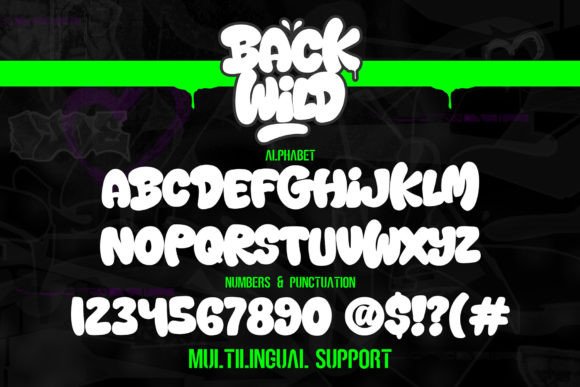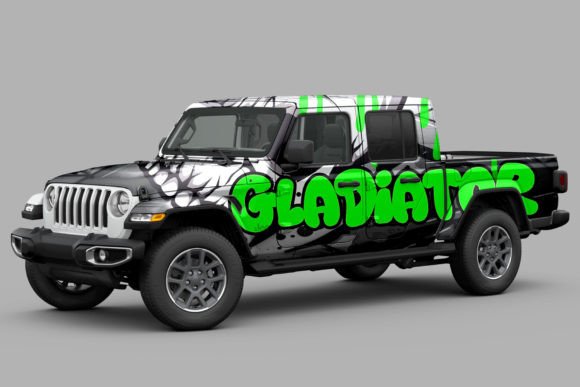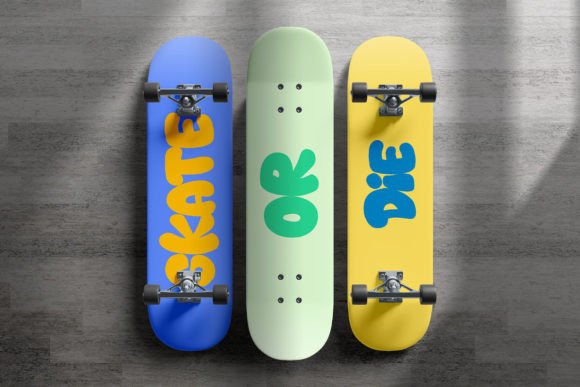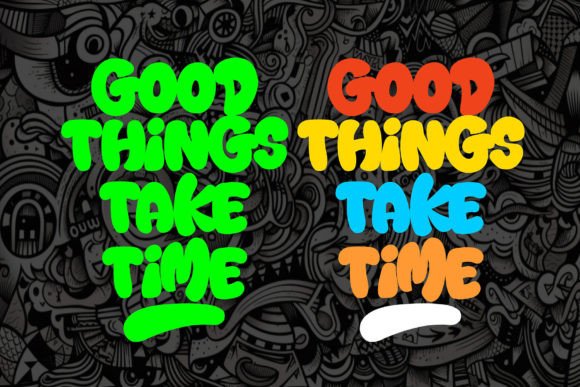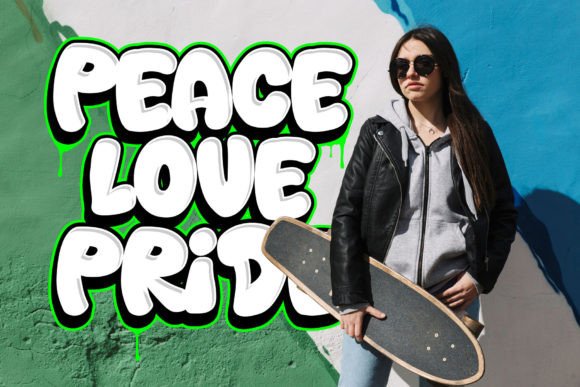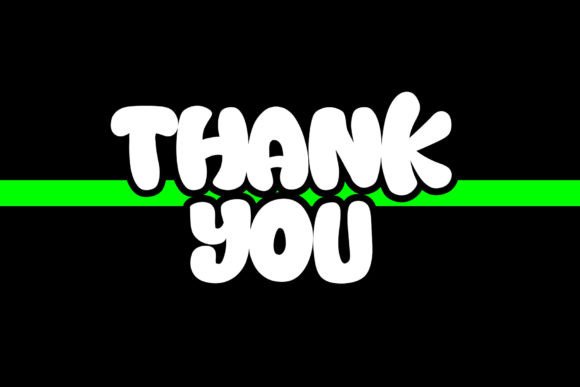
The Art of Graffiti Fonts: Unleashing Creativity with Back Wild Font
Have you ever been inspired by the vibrant colors and bold strokes of graffiti art? Maybe you’ve seen a street artist bring a blank wall to life with their unique style, and suddenly, your imagination is sparked. You can’t help but wonder what it would be like to create something just as bold and eye-catching.
That’s exactly where Back Wild Font comes in – a bold and chubby graffiti font that’s designed to unleash your creativity and add a touch of playfulness to your designs. With its wide letterforms and swash characters, Back Wild Font is perfect for adding a personal touch to your projects. Whether you’re a seasoned designer or just starting out, this font is sure to inspire you to think outside the box and push the boundaries of what’s possible.
For designers, Back Wild Font is a valuable tool for adding a unique and stylish element to their work. Its versatility and creative possibilities make it an ideal choice for a wide range of projects, from branding and advertising to digital art and graphic design.
- Unique Characteristics: Back Wild Font features a unique blend of organic and geometric elements, with intricate details and textures that give it a distinctive, hand-drawn look.
Back Wild Font Review
Overall, I’m quite impressed with the Back Wild Font. It’s got a certain je ne sais quoi that sets it apart from other fonts. ✨ The irregularity of the letters gives it a sense of character that’s hard to find in more traditional fonts.
The designer has done a great job of balancing the wildness of the font with a level of coherence that makes it easy to read. ✨ The font is perfect for those who want to add a touch of whimsy to their designs without sacrificing legibility.
Here are some of the things that I particularly like about the Back Wild Font:
- Unique and interesting character
- Perfect for adding a touch of whimsy to designs
- Legible and easy to read
That being said, there are a few limitations to the font:
- Not suitable for body text, best used for headlines or titles
- Not as versatile as some other fonts
Overall, I think the Back Wild Font is a great choice for designers who want to add a bit of personality to their work. It’s not perfect, but it’s definitely worth considering for the right project.
The “Back Wild Font” is ideal for:
– Creating a rustic or vintage look in your designs.
– Adding a touch of personality to your text.
– Creating a bold and eye-catching headline.
Tips for Getting the Most Out of “Back Wild Font”
– Experiment with different font sizes and styles to achieve the desired effect.
– Pair the “Back Wild Font” with other bold and playful fonts for a unique look.
– Use the font in conjunction with images or graphics to create a visually appealing design.